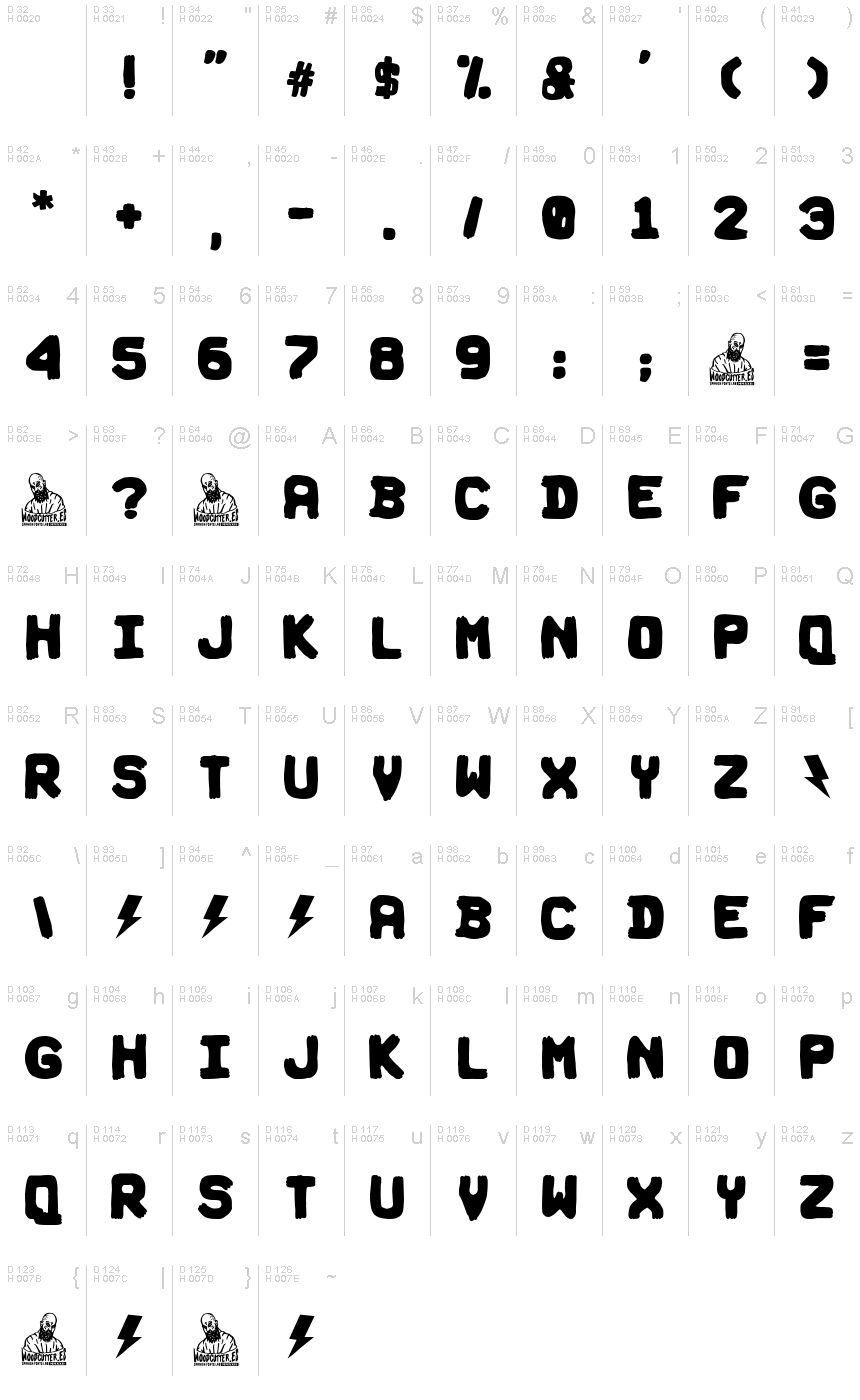
Protocolo Dieciseis
Protocolo Dieciseis captivates with its bold brush style, exuding a dynamic energy that commands attention. The exaggerated thickness lends an assertive presence, making it ideal for impactful headlines or branding. Its playful yet sophisticated appeal strikes a balance, inspiring creativity while ensuring readability.
The font’s lively strokes add expressive character, perfect for applications ranging from lively posters to engaging social media graphics. In signage and event materials, Protocolo Dieciseis can create a striking visual identity that resonates with audiences. Whether aiming for modern flair or a touch of whimsy, this font invites designers to explore limitless possibilities across various creative projects.